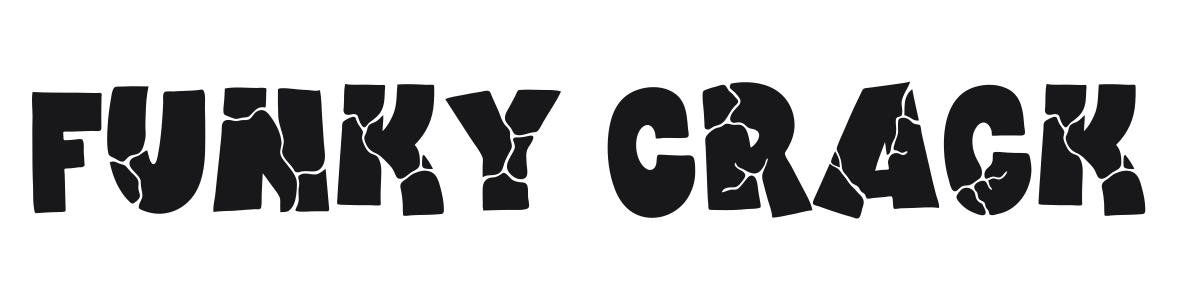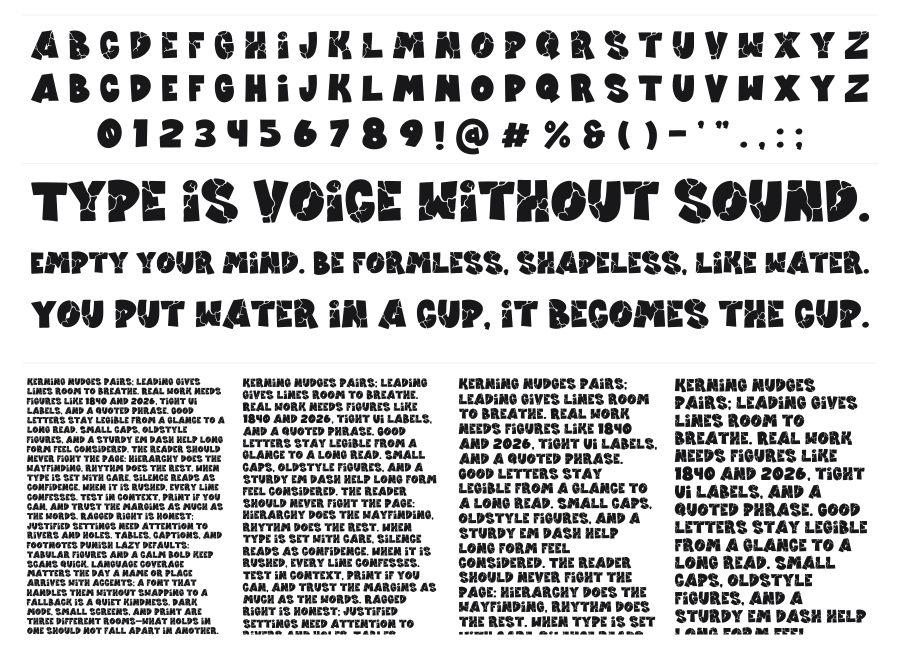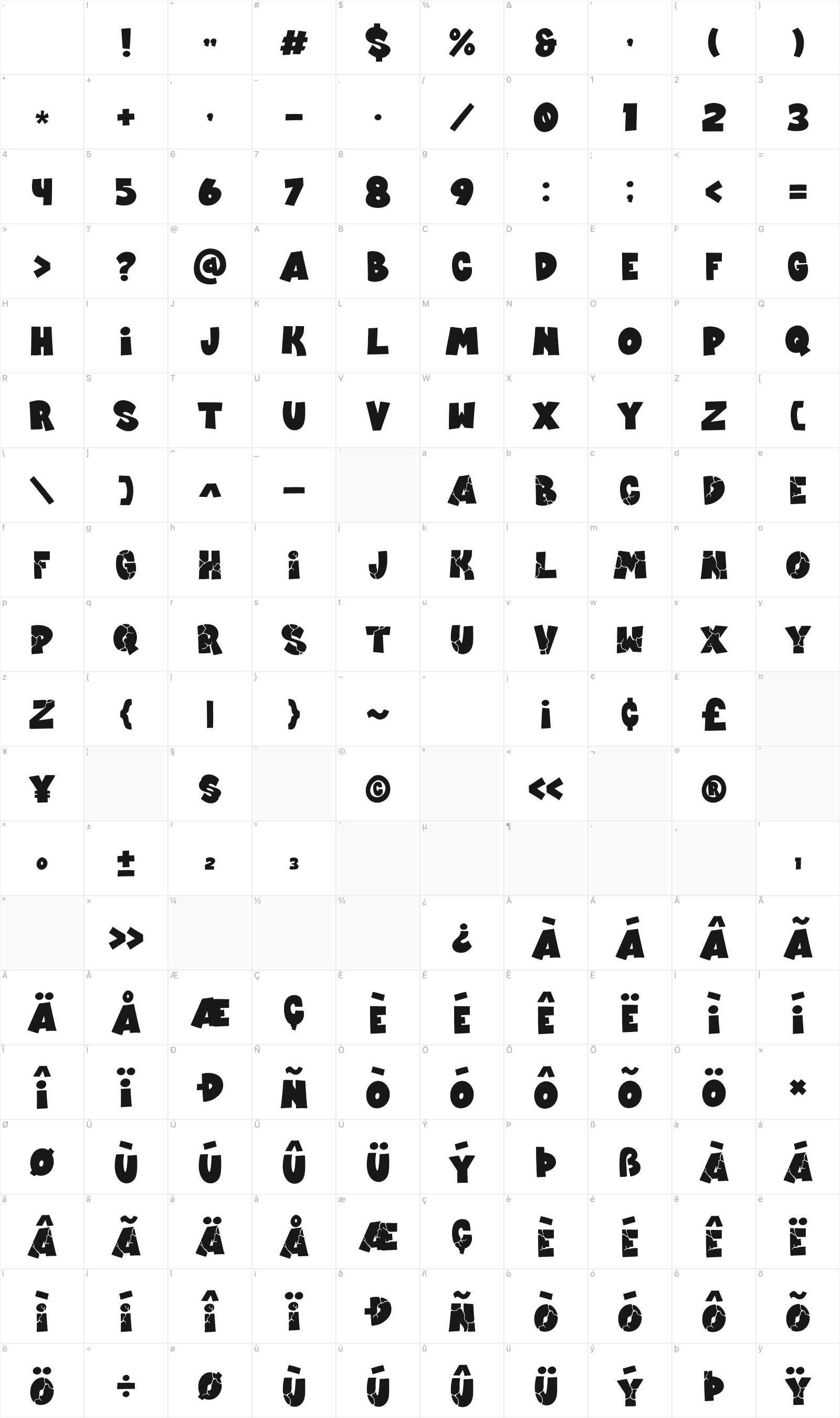
Funky Crack
Funky CrackLicense is a heavy display font where each character appears to be shattered from within, split by dramatic crack lines that carve white voids through solid black letterforms. The effect is bold and immediate, somewhere between graffiti culture and apocalyptic design. Works best large, where the fracture details read clearly.